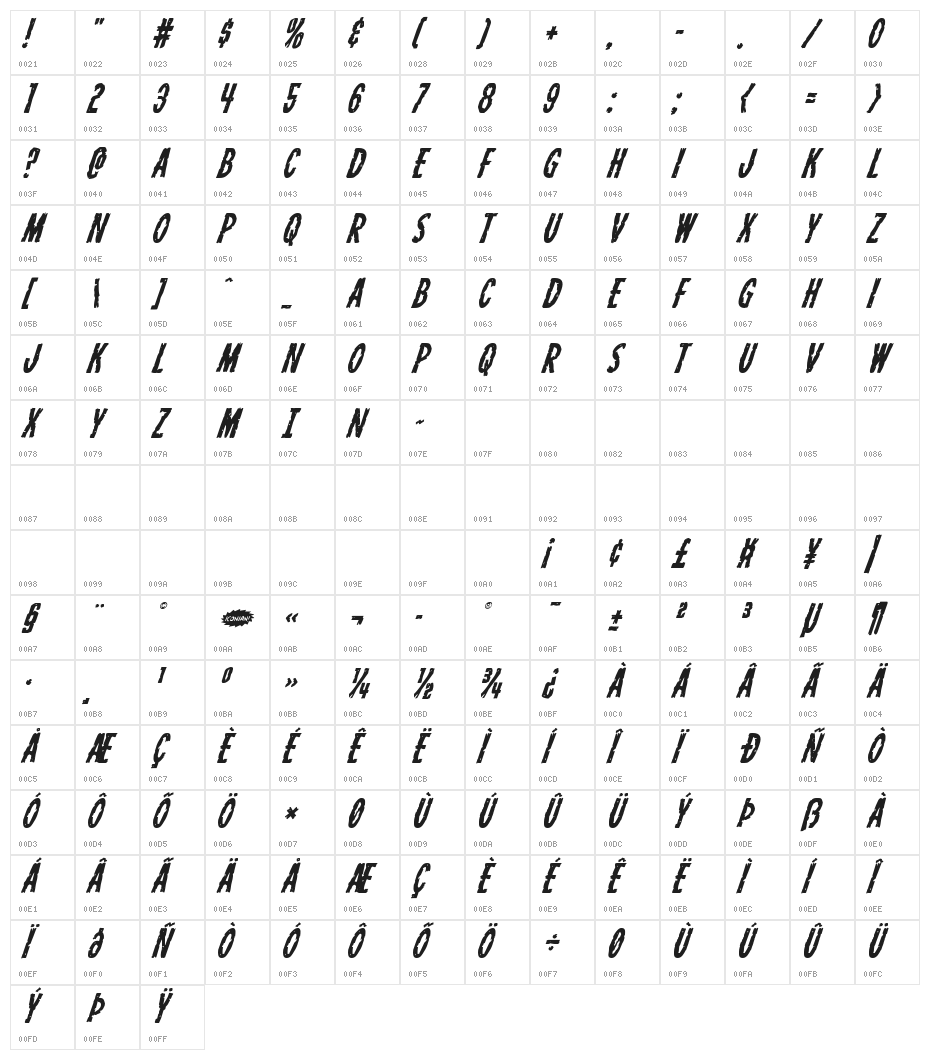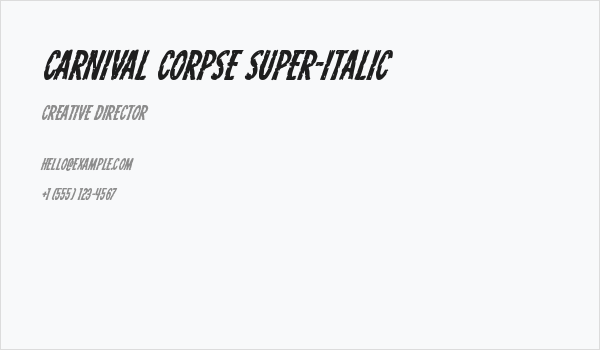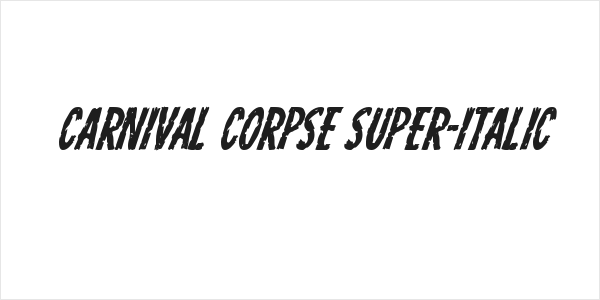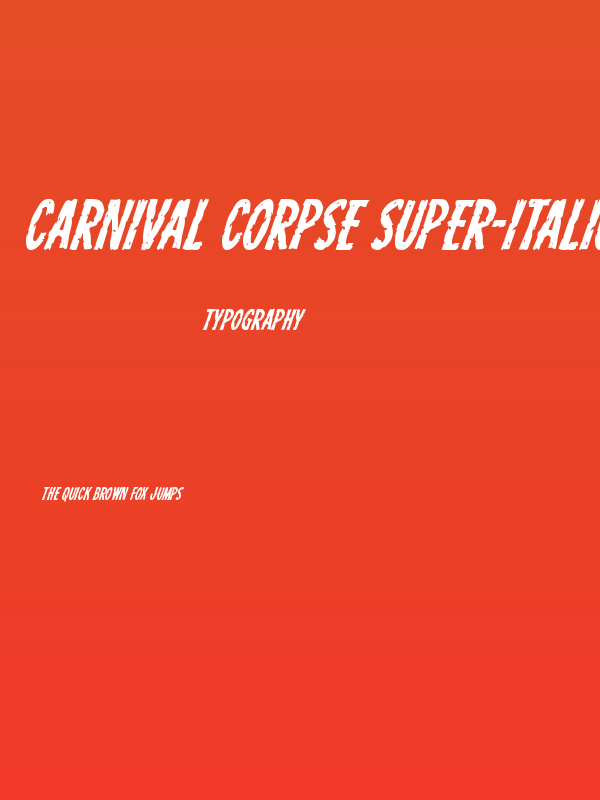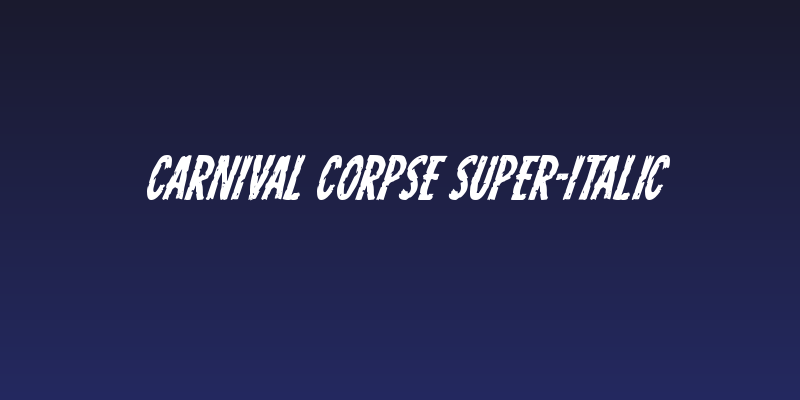
Carnival Corpse Super-Italic Font
Carnival Corpse Super-Italic Description
This font features a bold and dynamic style with a distressed, grunge-like appearance. The characters are heavily slanted, giving an energetic and chaotic feel. The strokes are thick and uneven, with jagged edges that create a sense of movement and urgency. The uppercase and lowercase letters maintain a consistent style, while the numbers and special characters complement the overall aesthetic. This font is designed to stand out and make a strong visual impact.
| Proposed Projects | Ideal for horror-themed posters, edgy branding, music album covers, and event flyers. |